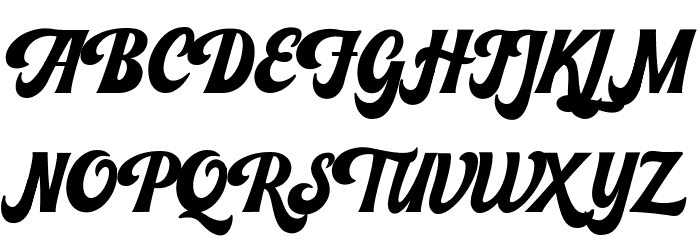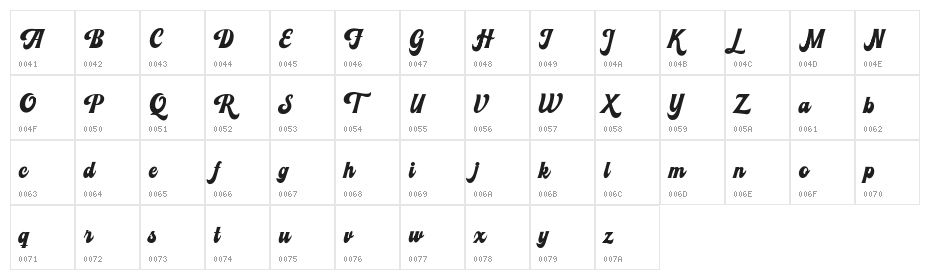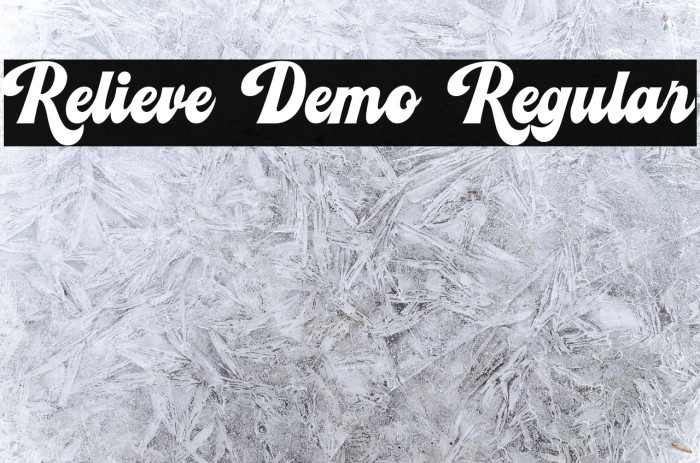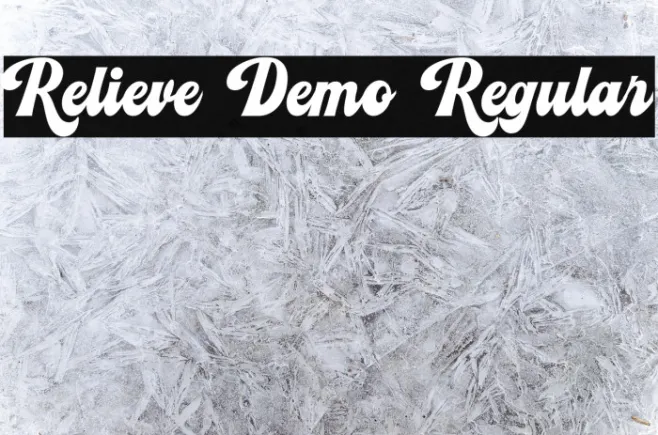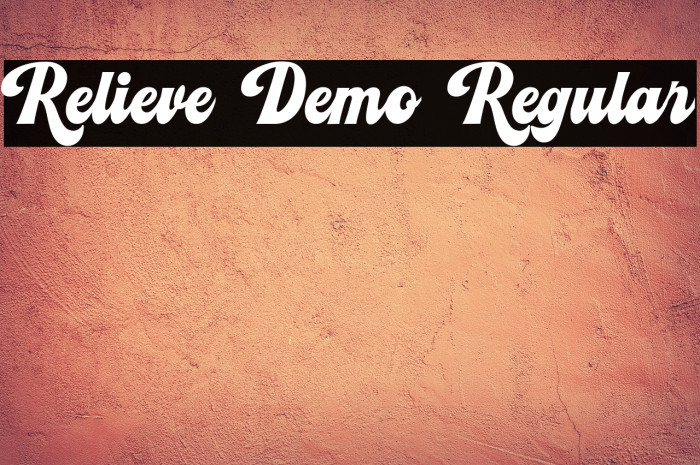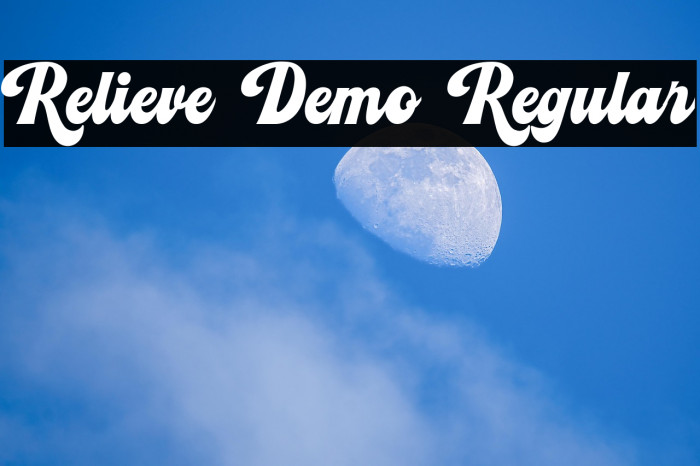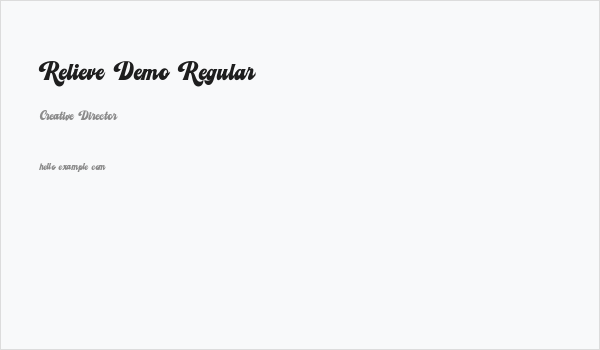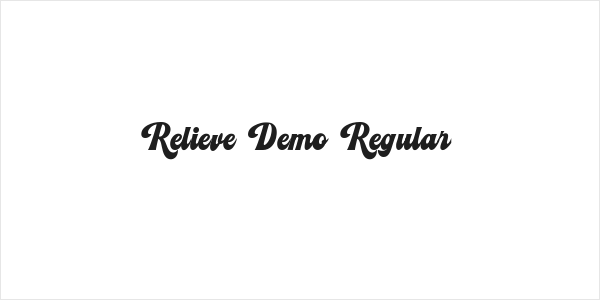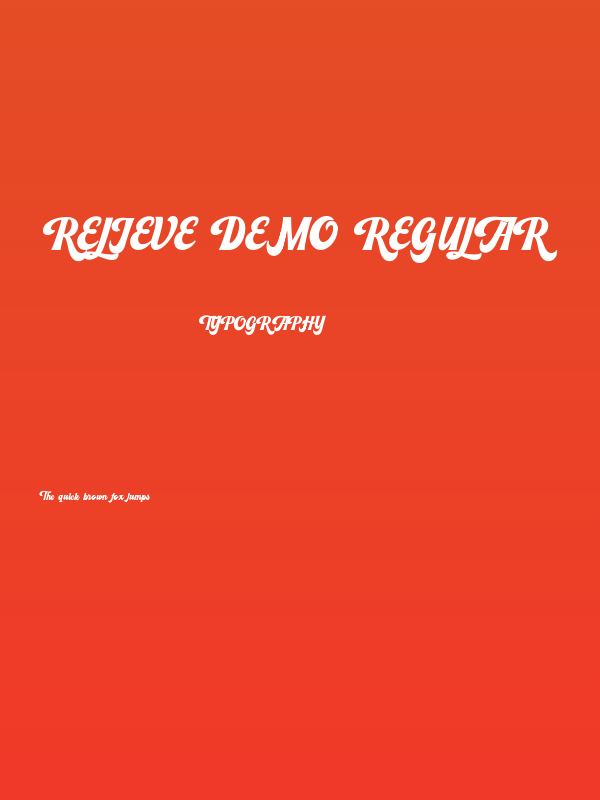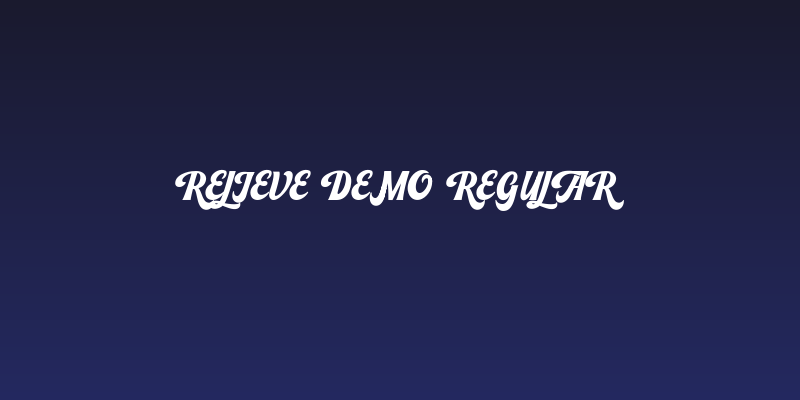
Relieve Demo Regular Font
Relieve Demo Regular Description
This font features bold, flowing script with a strong presence, characterized by its thick strokes and smooth curves. The uppercase letters are particularly striking, with a dynamic and elegant flair that suggests movement and grace. The lowercase letters maintain this fluidity, offering a harmonious blend of style and readability. The font's design is reminiscent of classic calligraphy, yet it maintains a modern edge, making it versatile for various applications. Its bold nature ensures that it stands out, making it ideal for attention-grabbing headlines or impactful logos. The overall aesthetic is both sophisticated and approachable, suitable for projects that require a touch of elegance and personality.